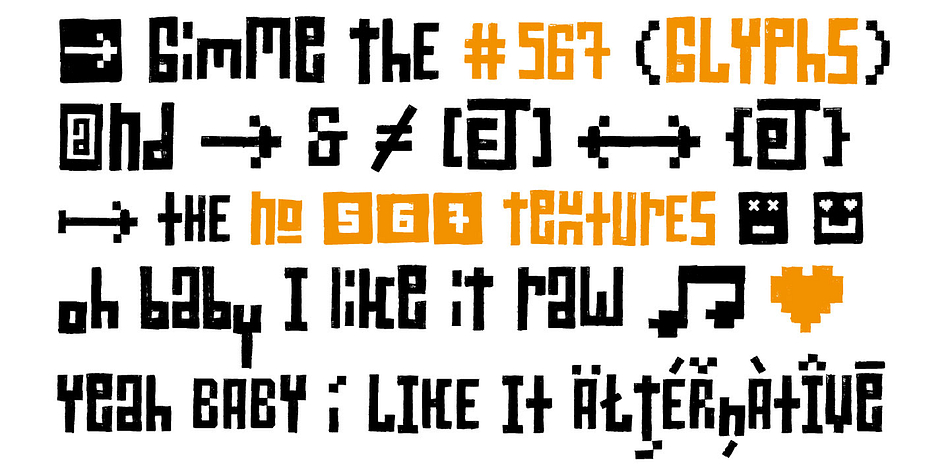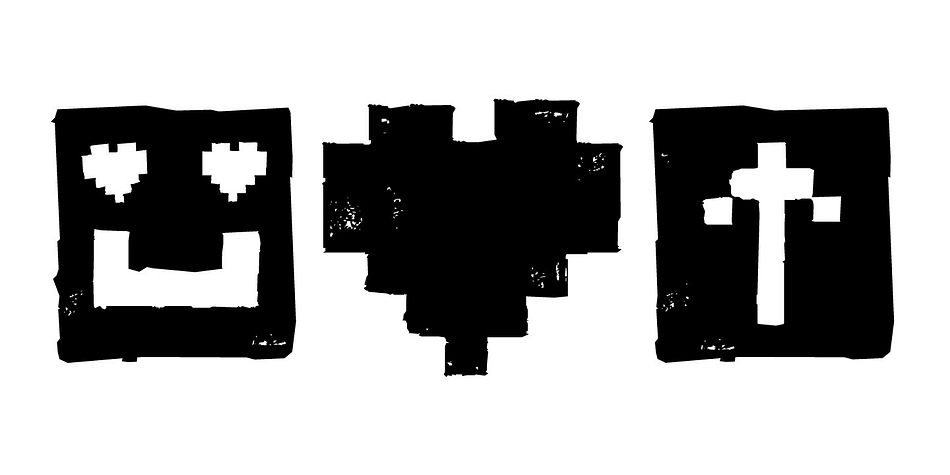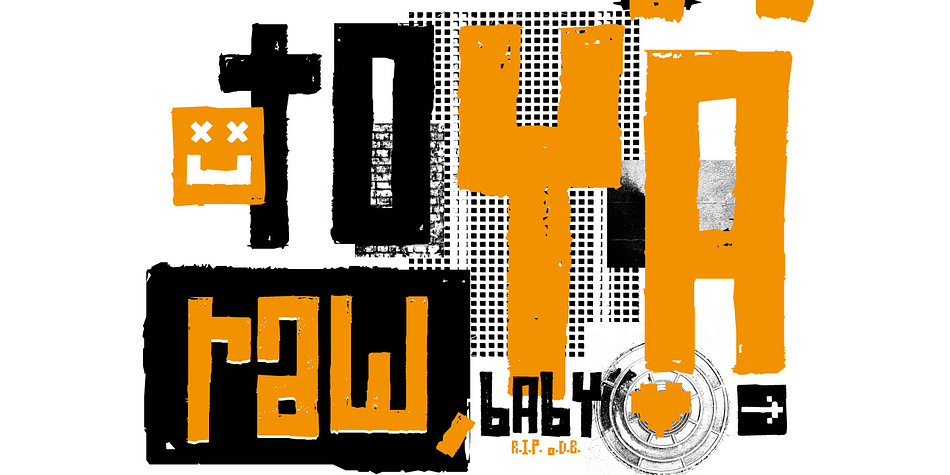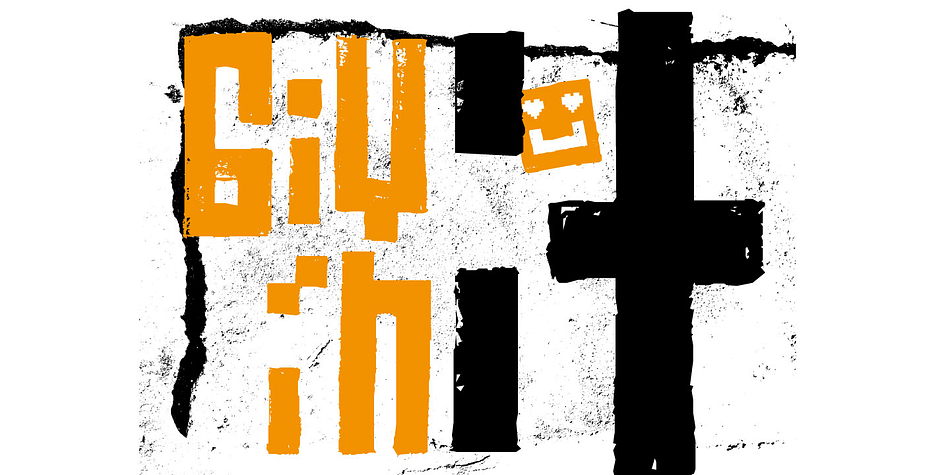
Designed by Manuel Viergutz, Raw Street Wall is a grunge and hand display font published by Typo Graphic Design.
The headline font Raw Street Wall from Manuel Viergutz for the Typo Graphic Design Font-Foundry is a playful handmade and rough display font with 567 glyphs. Incl. extras like emoticons/icons and OpenType-Features.